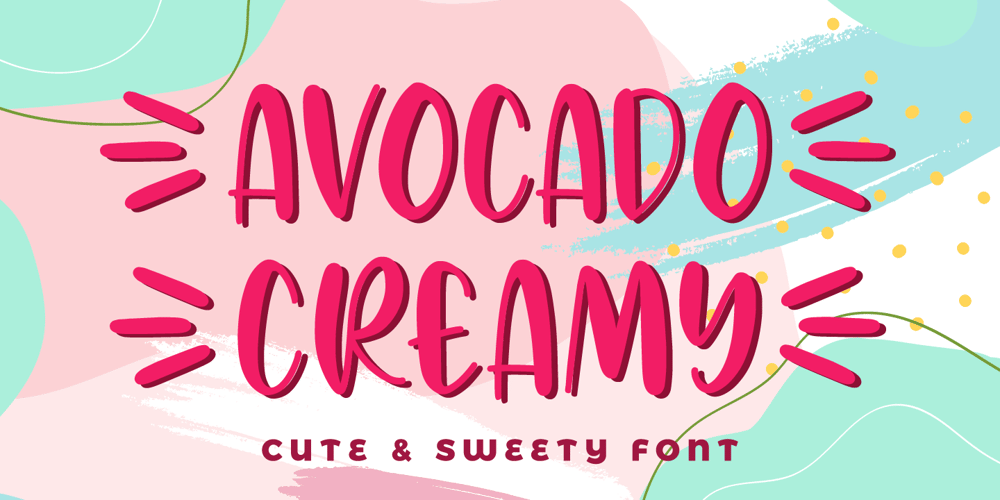
Avocado Creamy Font Family was designed by Abdul Malik Wisnu and published by Almarkha Type. Avocado Creamy contains 1 styles and family package options. Avocado Creamy is sweet and playful, but also Crafty. This versatile scriptfont has a wide range of applications ranging from greeting cards tokids’ crafts, and is guaranteed to add a sweet touch to your nextdesign.Accessible in the Adobe Illustrator, Adobe Photoshop, Adobe InDesign, even work on Microsoft Word.PUA Encoded Characters – Fully accessible without additional design software.Fonts include multilingual support for; ä ö ü Ä Ö Ü ßThank’s !